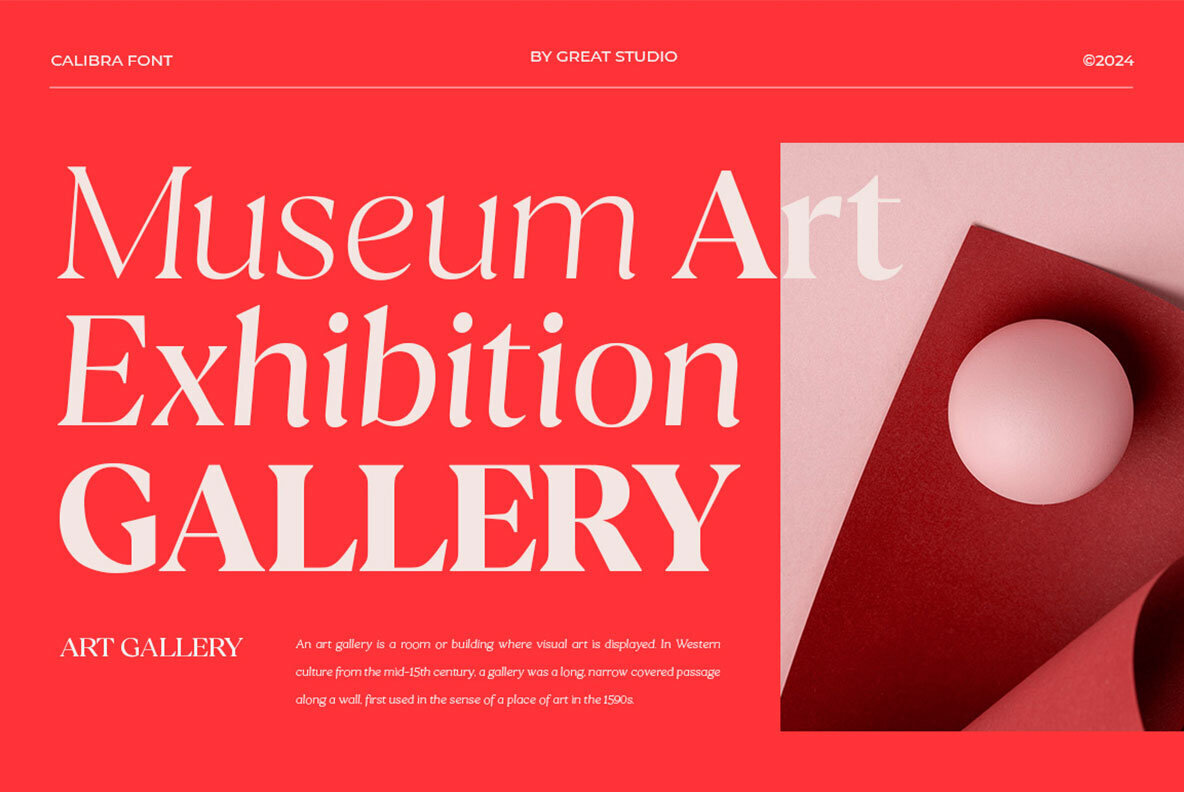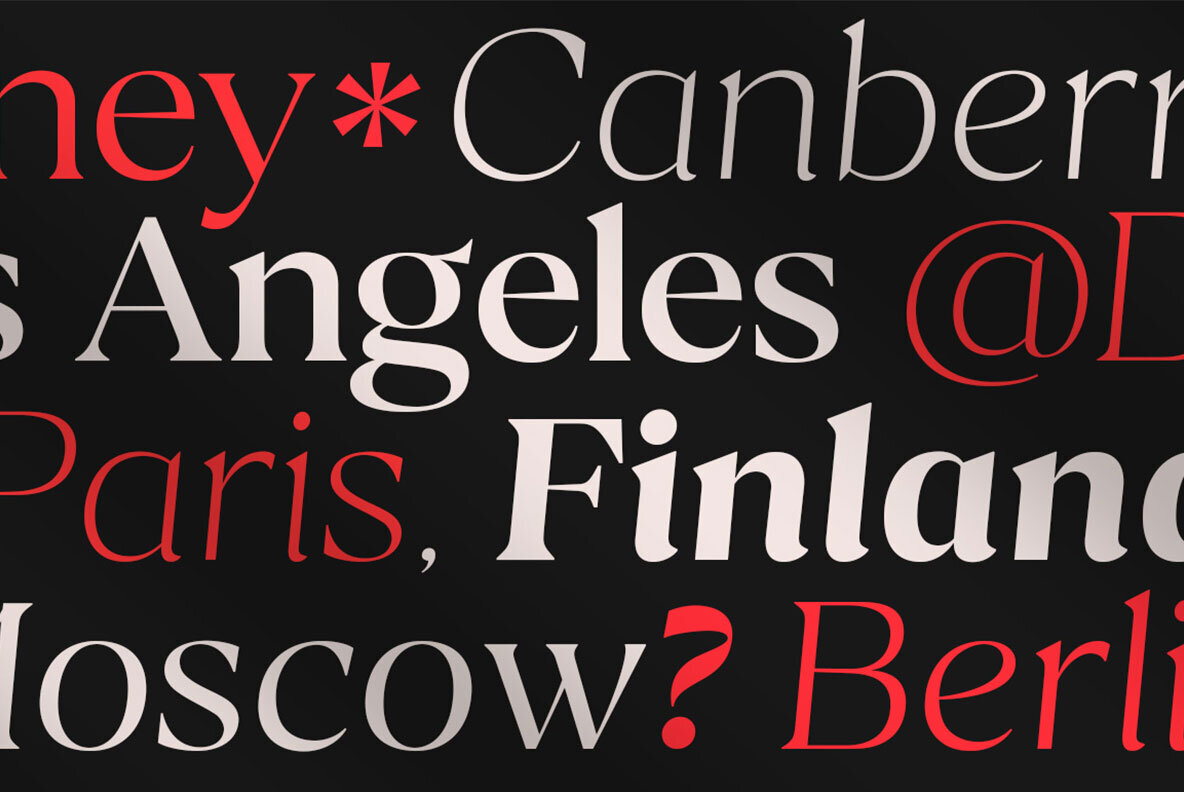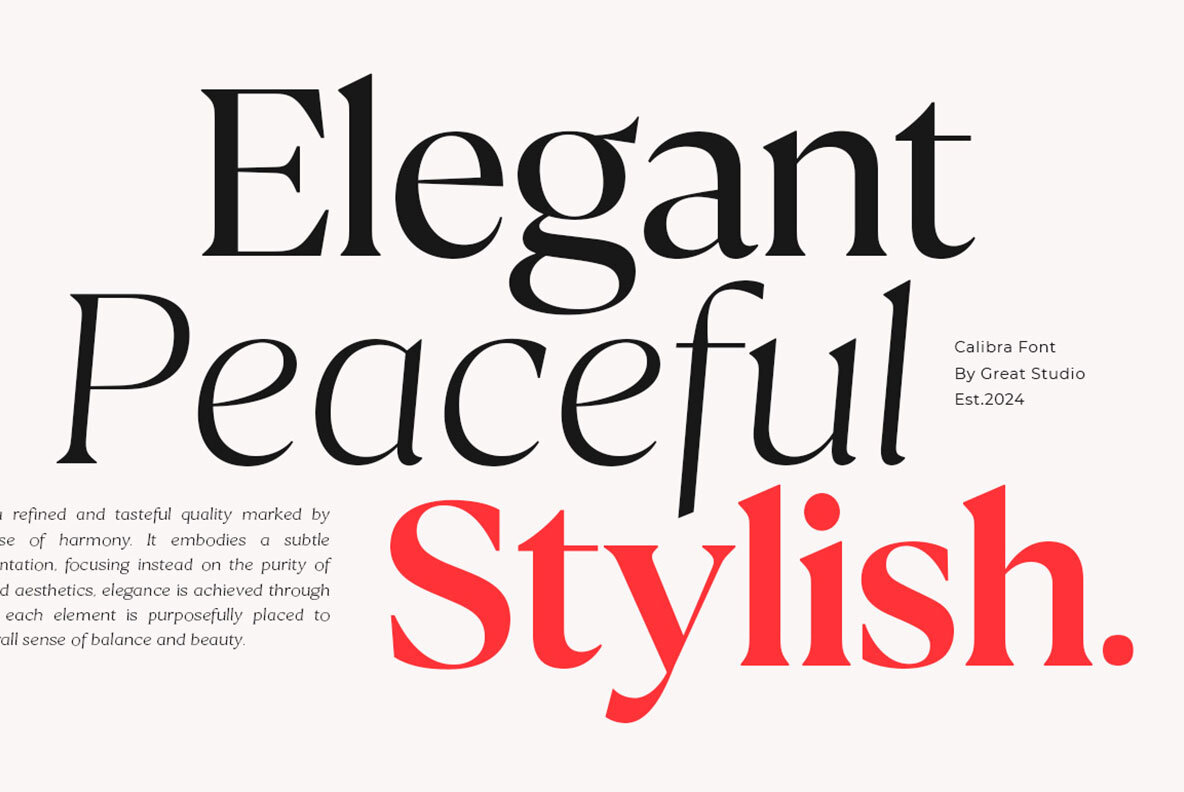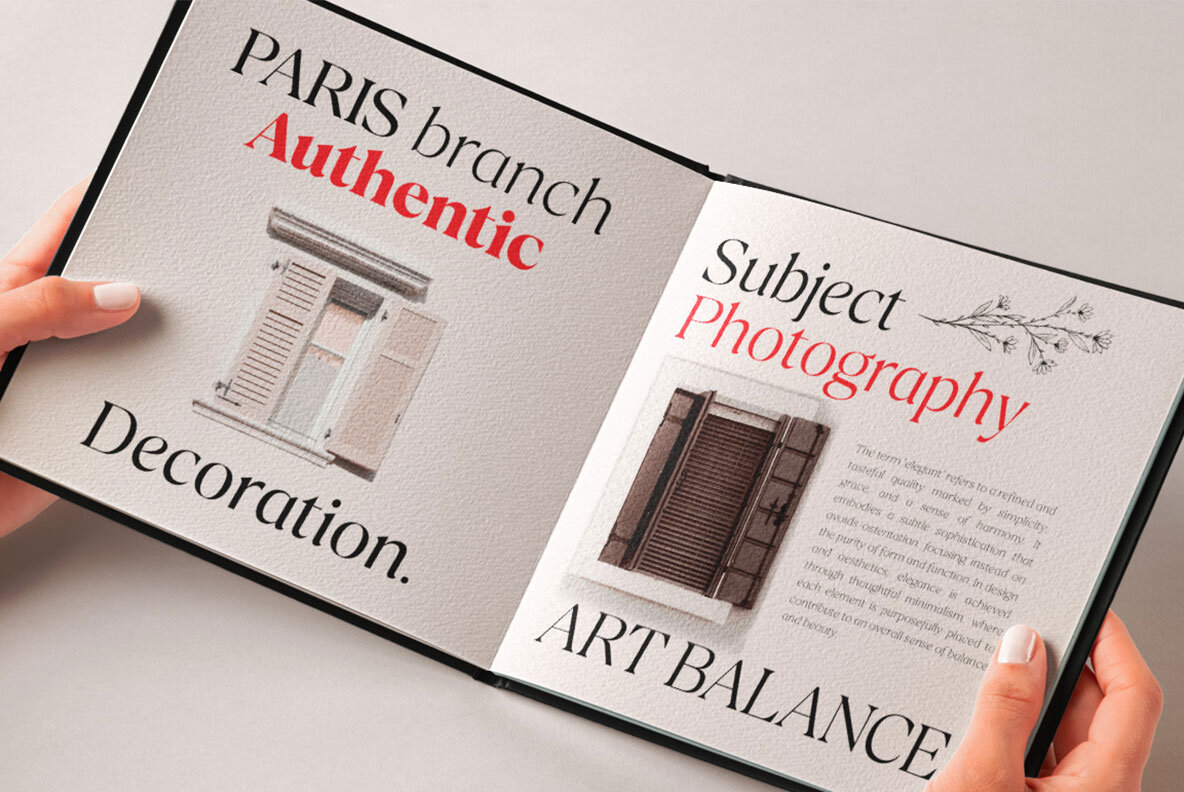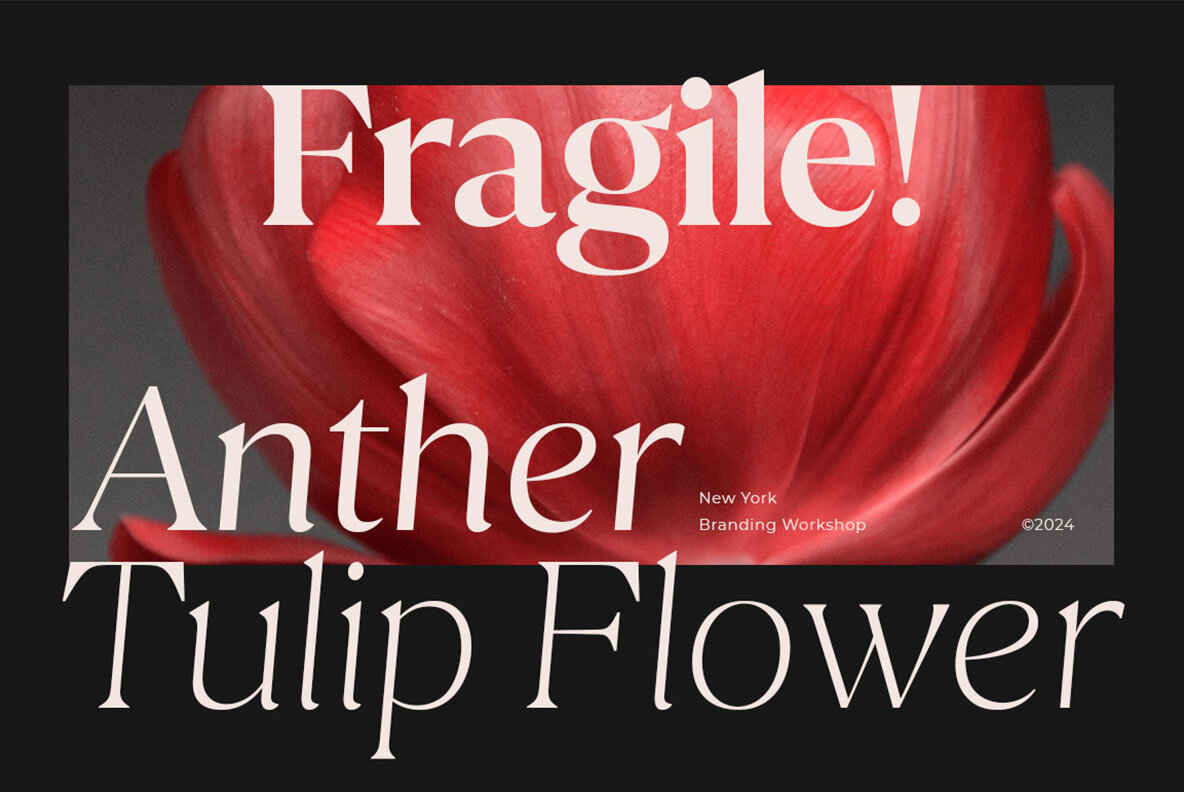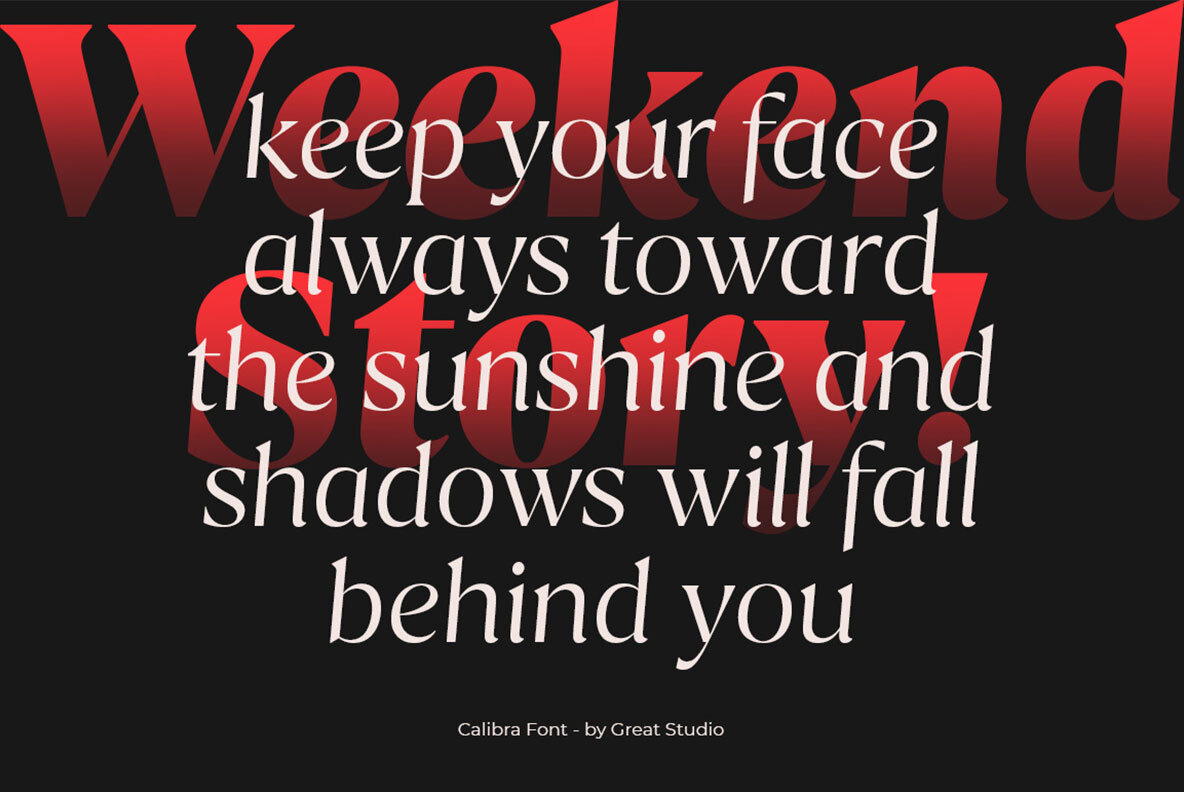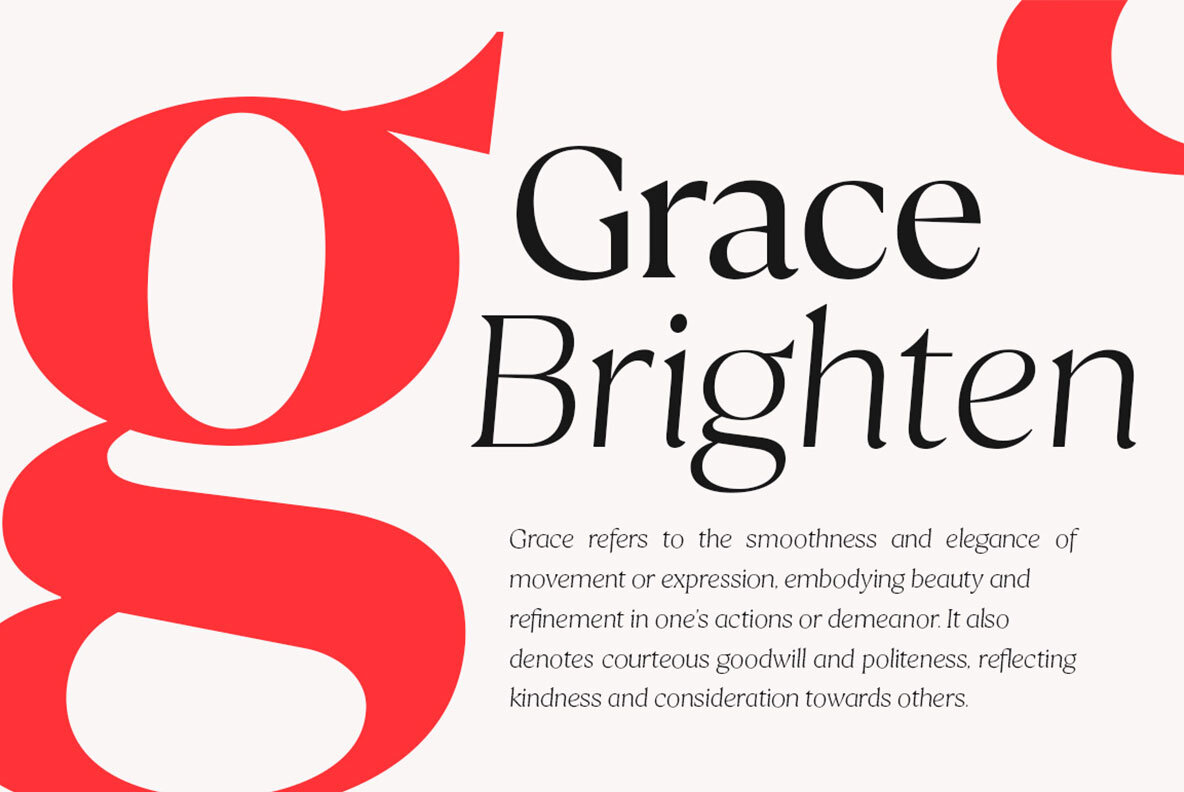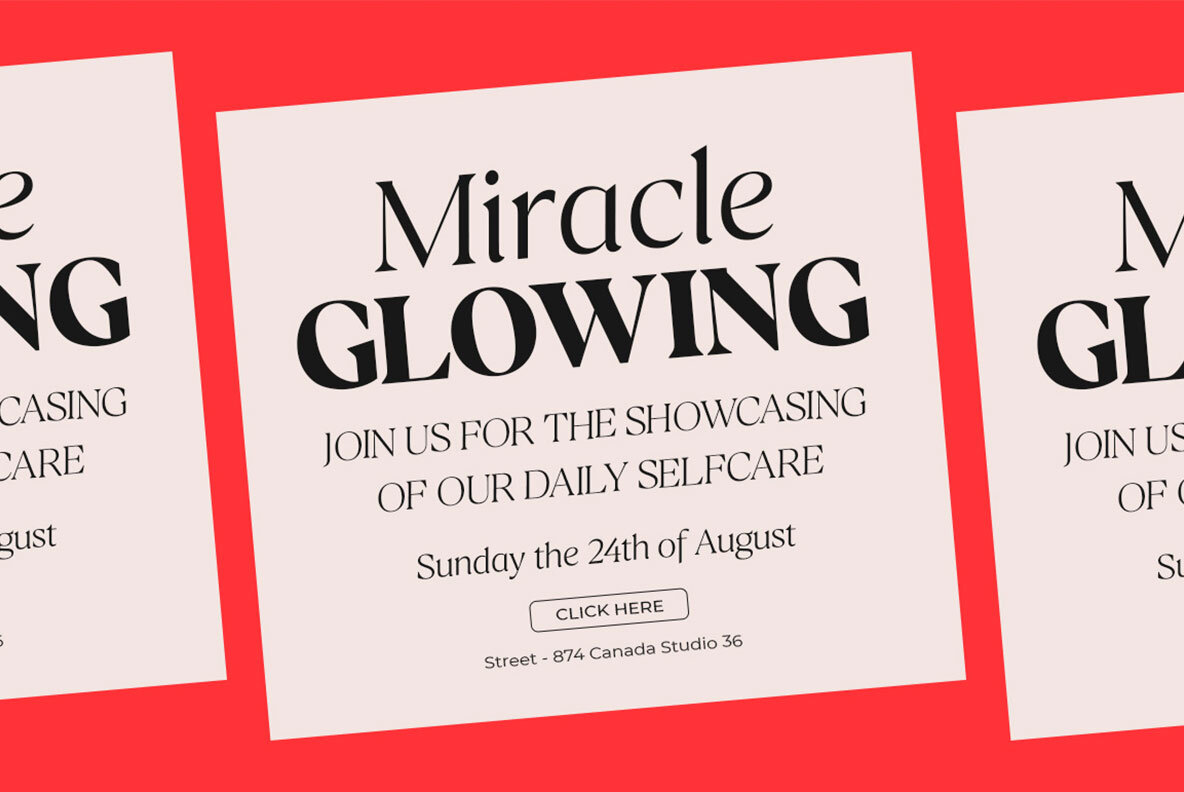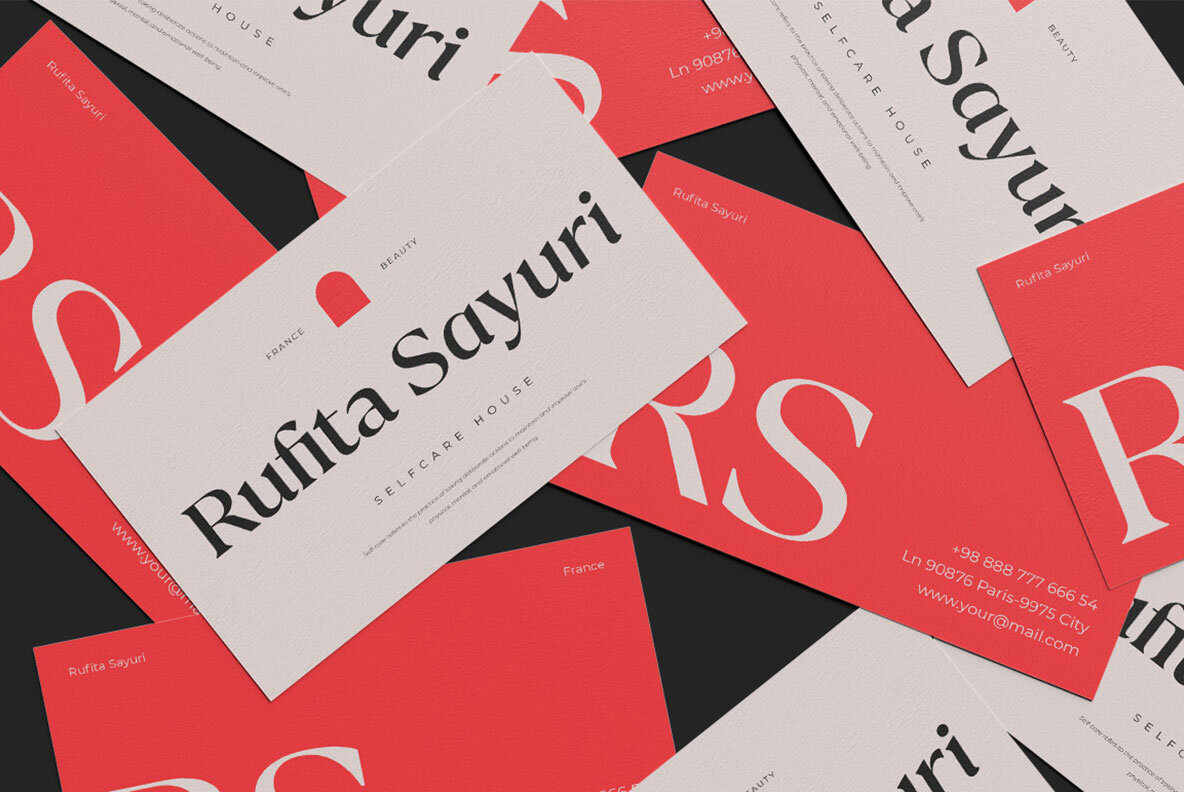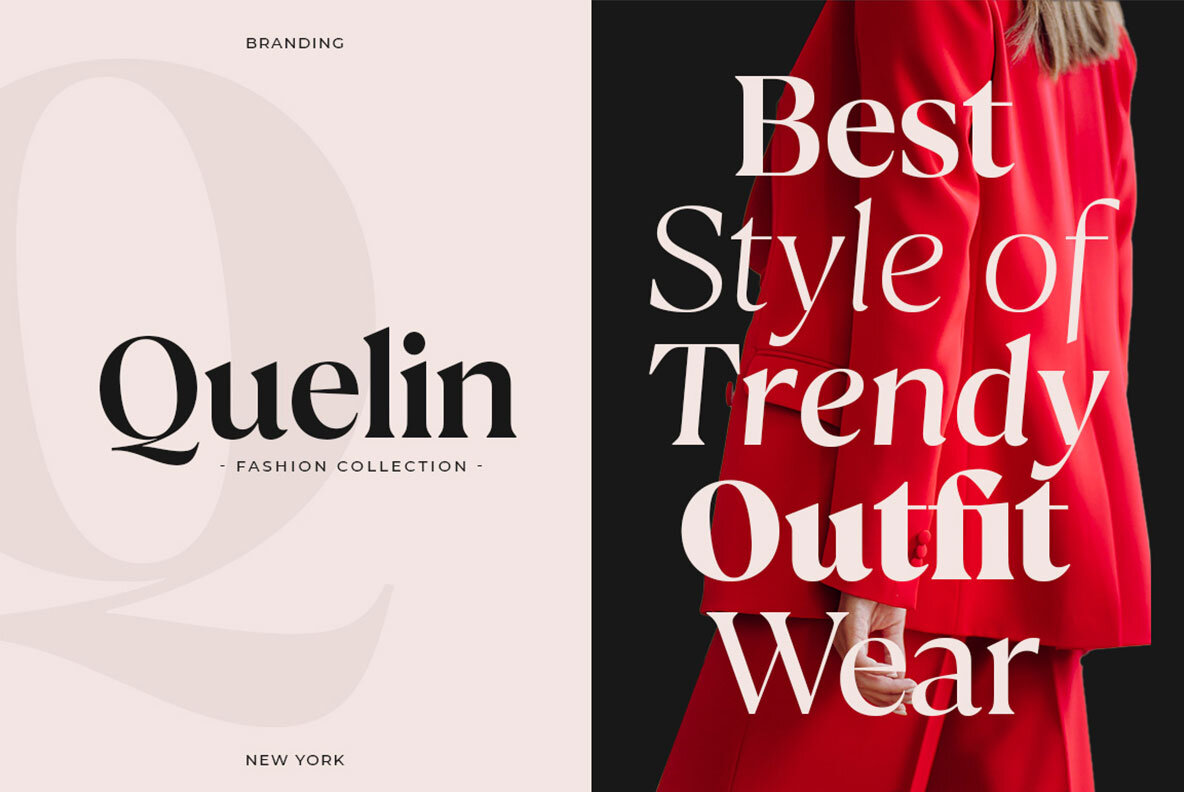
Calibra Font
Calibra is a high-contrast typography inspired by transitional and contemporary typography. Fonts extend their use by giving weights ranging from thin to black. The natural curve, a swollen and sloping stem, grows in character as the font gains weight. While the thinner weight has lowered contrast and optical correction to create a warm and soft look. Featuring beautiful italics, excellent weight and extensive language support. Calibra excels in display settings such as headlines, titles, branding projects, Logo design, packaging, magazine headings, advertising, short or long text. Calibra also comes with two versions of Variable Regular and Italic to make it easier for designers to explore and perfect beautiful designs, unearthing lots of visual tones and hidden secrets.